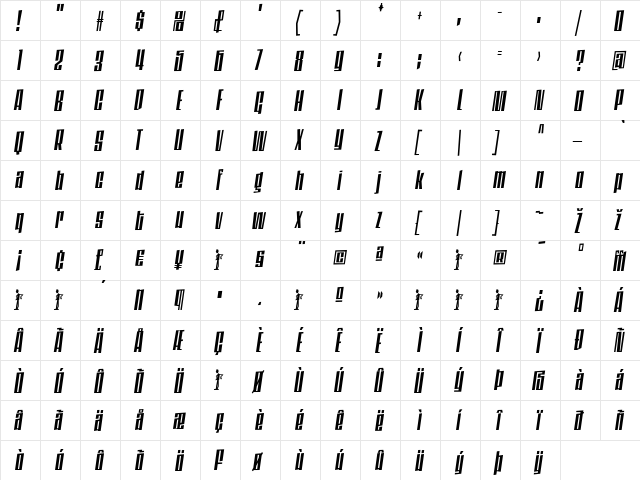
DaleysGothic Italic
Design Context for DaleysGothic Typeface
DaleysGothic takes a clean, functional approach — its unadorned letterforms prioritise legibility and work reliably across screen and print environments. The dynamic lean of this cut emphasises speed and emphasis in any layout.
Font Pairing: Works well alongside a characterful serif or display font that can carry the expressive load while DaleysGothic handles the functional copy.
Pro Tip: Use DaleysGothic for UI labels, navigation, and short-form body copy where clean legibility is the priority.